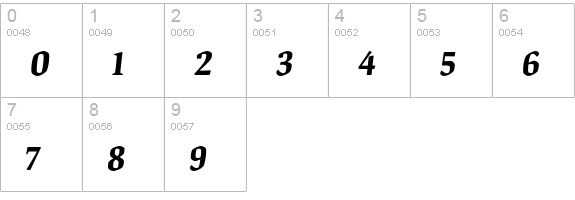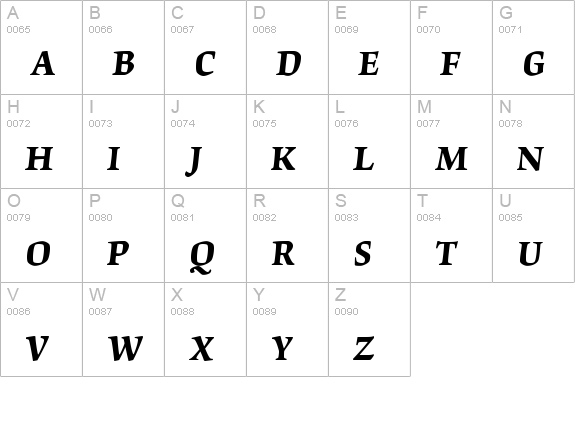
Origami Std Semibold Italic is a sub-bold, structured, italic variant in the Origami typeface family \xE2\x80\x94 well suited to sub-headlines and emphasised passages.
Origami Std Semibold Italic is a modern and stylish font that exudes elegance and sophistication. Its bold and slanted design adds a touch of flair to any project, making it perfect for headlines, logos, and other design elements that require a strong presence. This versatile font is ideal for both print and digital media, providing clarity and readability while maintaining a sense of creativity. The sharp edges and clean lines of Origami Std Semibold Italic make it stand out from the crowd, giving your designs a unique and professional look. Best of all, Origami Std Semibold Italic is available for free download at FontsMarket.com, making it accessible to anyone looking to add a touch of sophistication to their projects without breaking the bank. Don't miss out on this fantastic opportunity to enhance your designs with the sleek and stylish Origami Std Semibold Italic font.